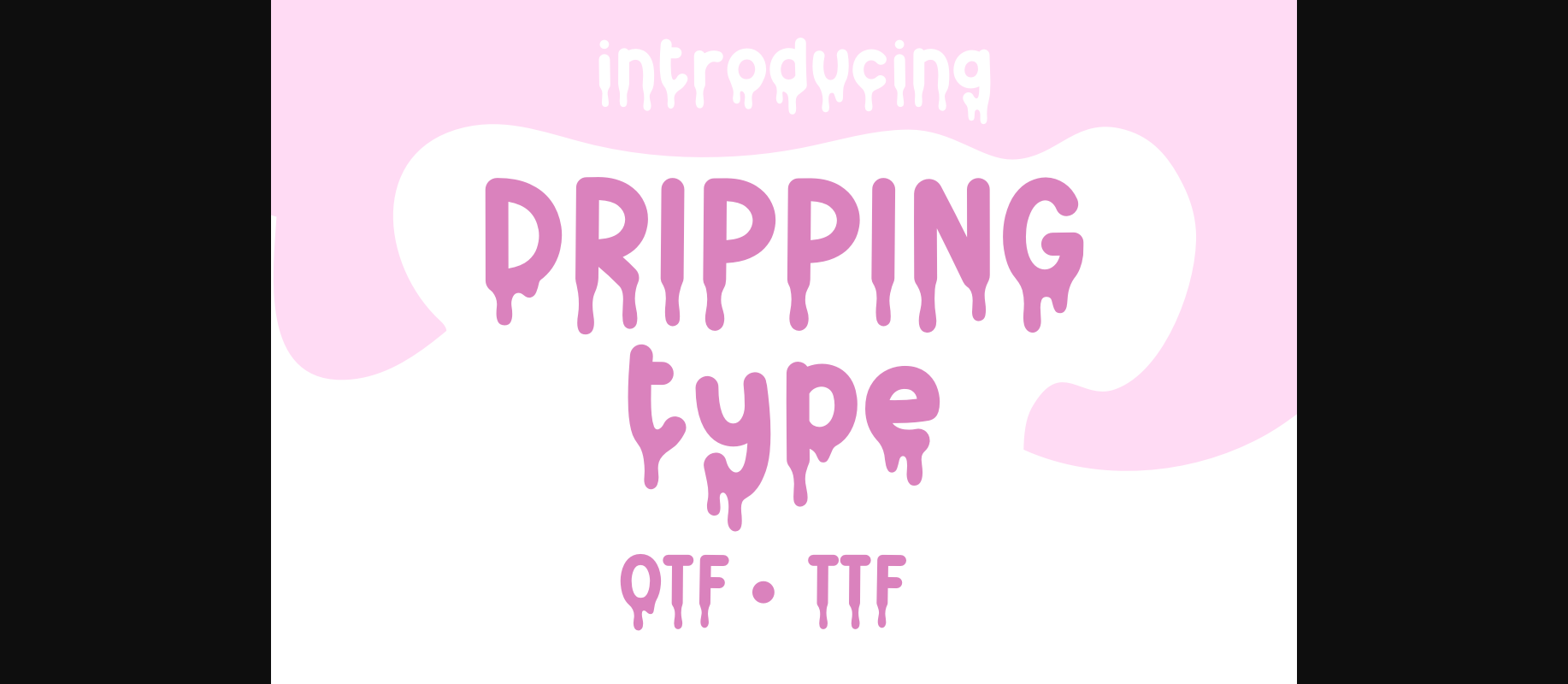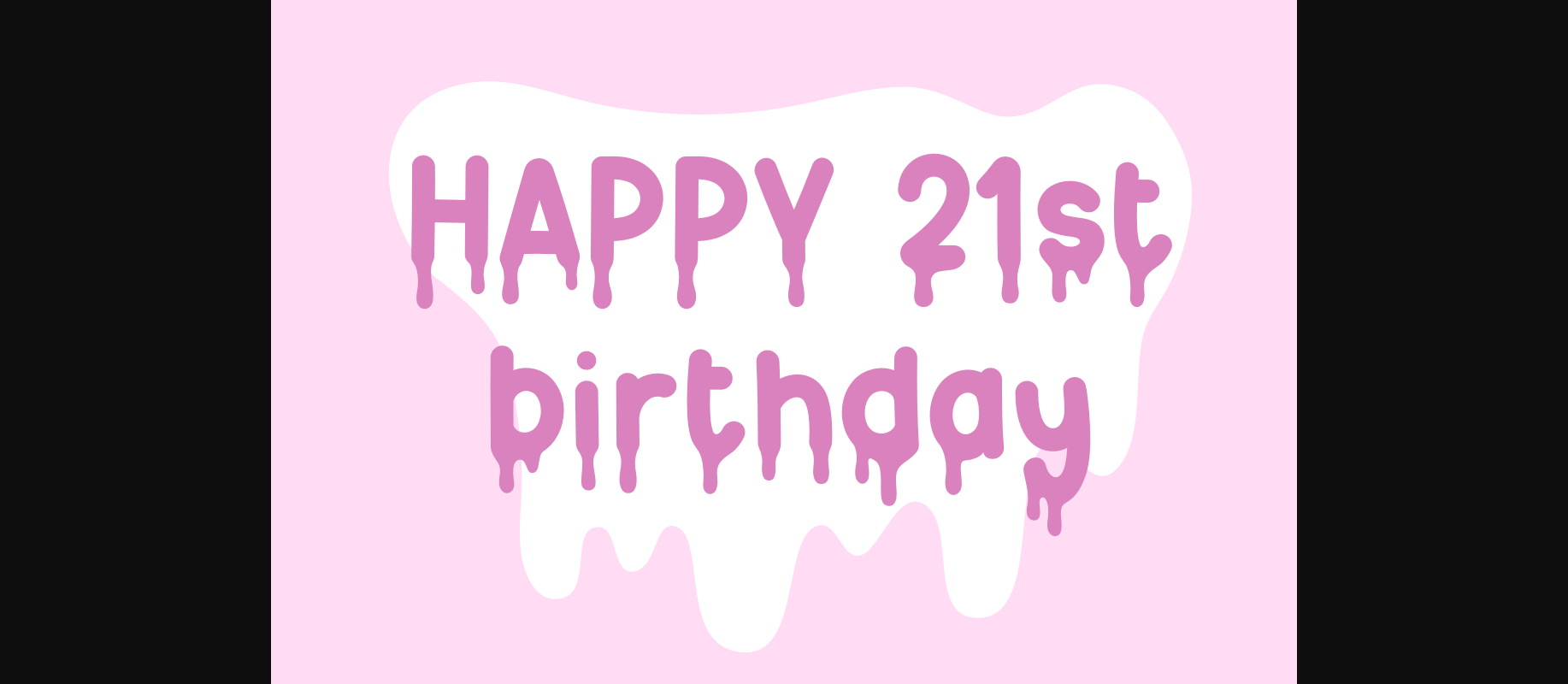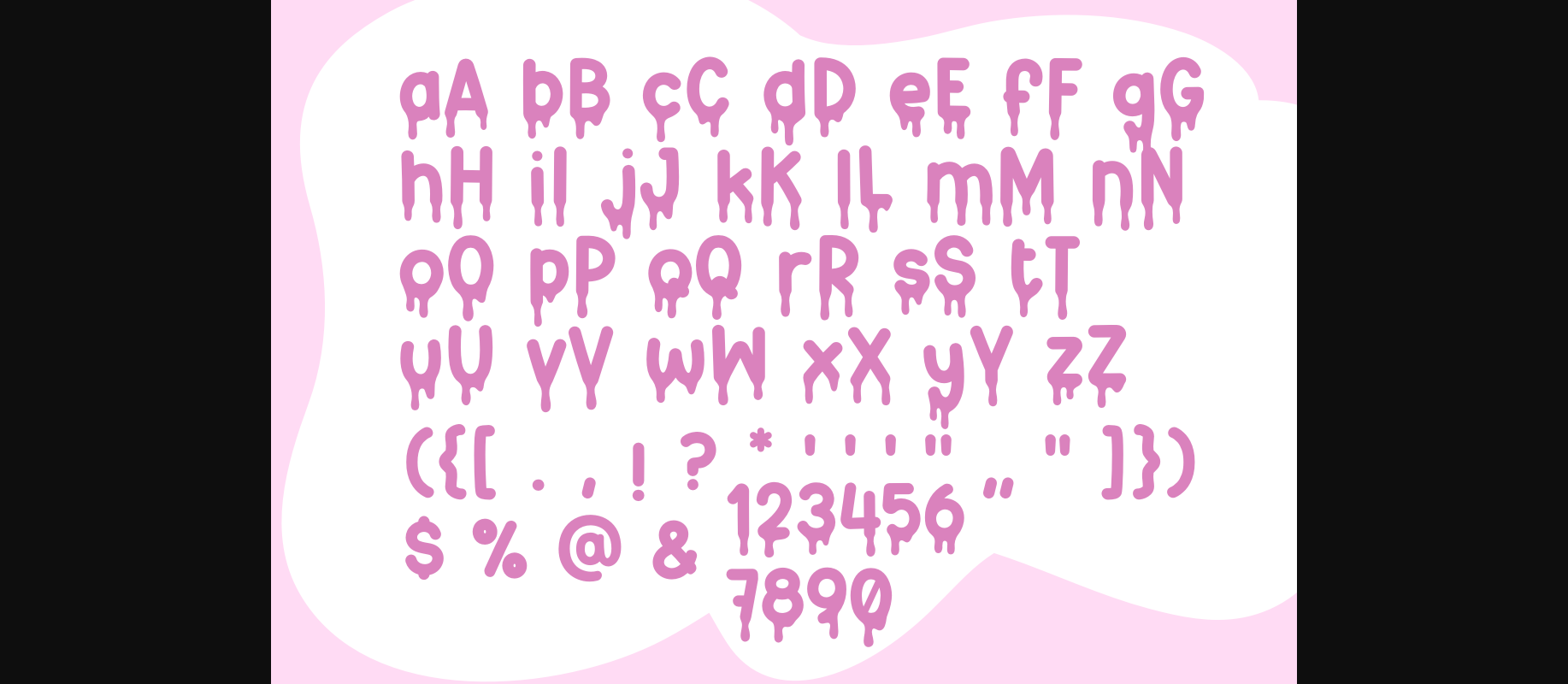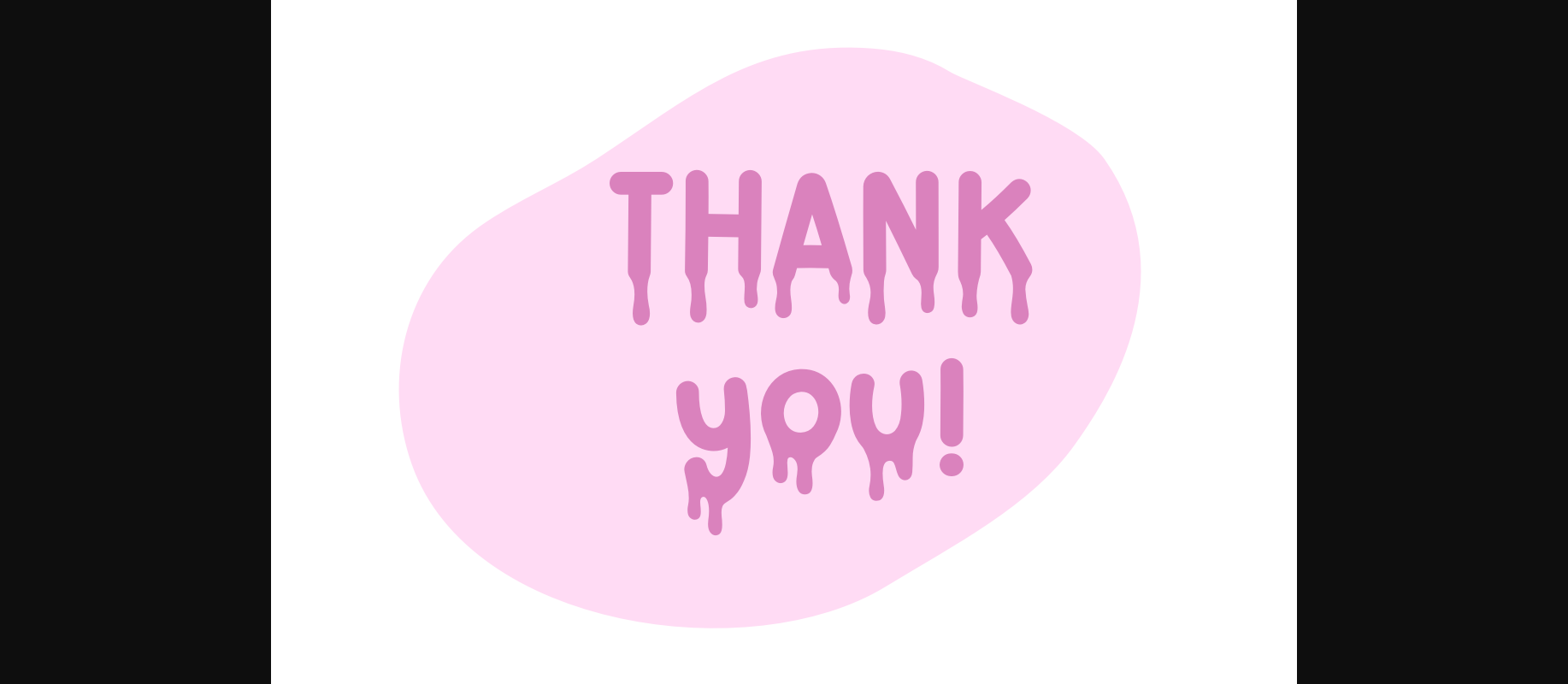
Drippingtype Font
About Drippingtype Font
DrippingType is a quirky handwritten font that has a drip style to it. It comes with lower and uppercase letters and the numbers also have drips. Use it to add some quirkiness to your projects and crafts. And if you find the product useful, please leave a review, it will be highly appreciated.